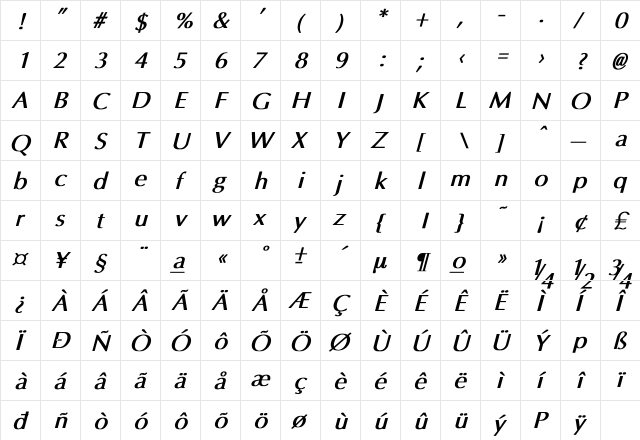
Amsterdam Bold Italic
Design Context for Amsterdam Typeface
Amsterdam is a composed and adaptable typeface that performs quietly and consistently across a wide range of design contexts. The dynamic lean of this cut emphasises speed and emphasis in any layout. The heavy weight commands attention and anchors typographic hierarchies.
Pro Tip: Try Amsterdam for annotation and caption copy alongside an upright companion — the contrast in angle creates a dynamic but ordered typographic system.